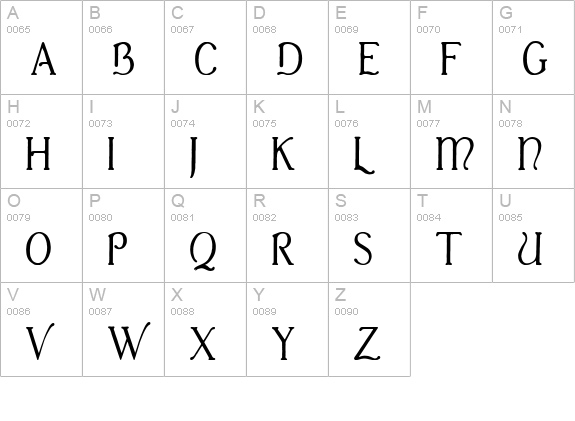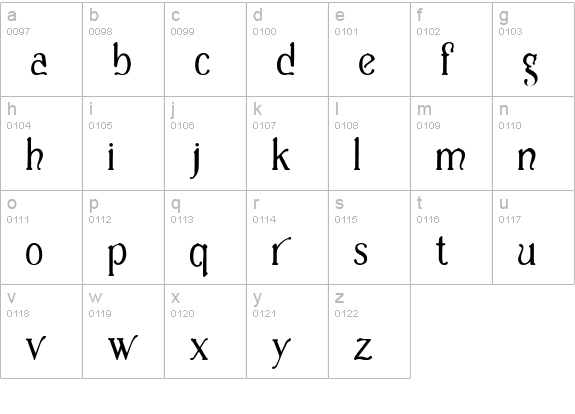
Casua font is a modern and stylish typeface that effortlessly combines elegance with simplicity. With its clean lines and smooth curves, Casua is perfect for a wide range of design projects, from logos to packaging to social media graphics. Its versatility makes it a go-to choice for both digital and print applications. What sets Casua font apart is not just its design, but also its accessibility. This font is completely free to download at FontsMarket.com, making it a valuable resource for designers looking to add a touch of sophistication to their work without breaking the bank. Whether you're a seasoned professional or a budding creative, Casua font is sure to enhance your projects with its timeless appeal and effortless charm.